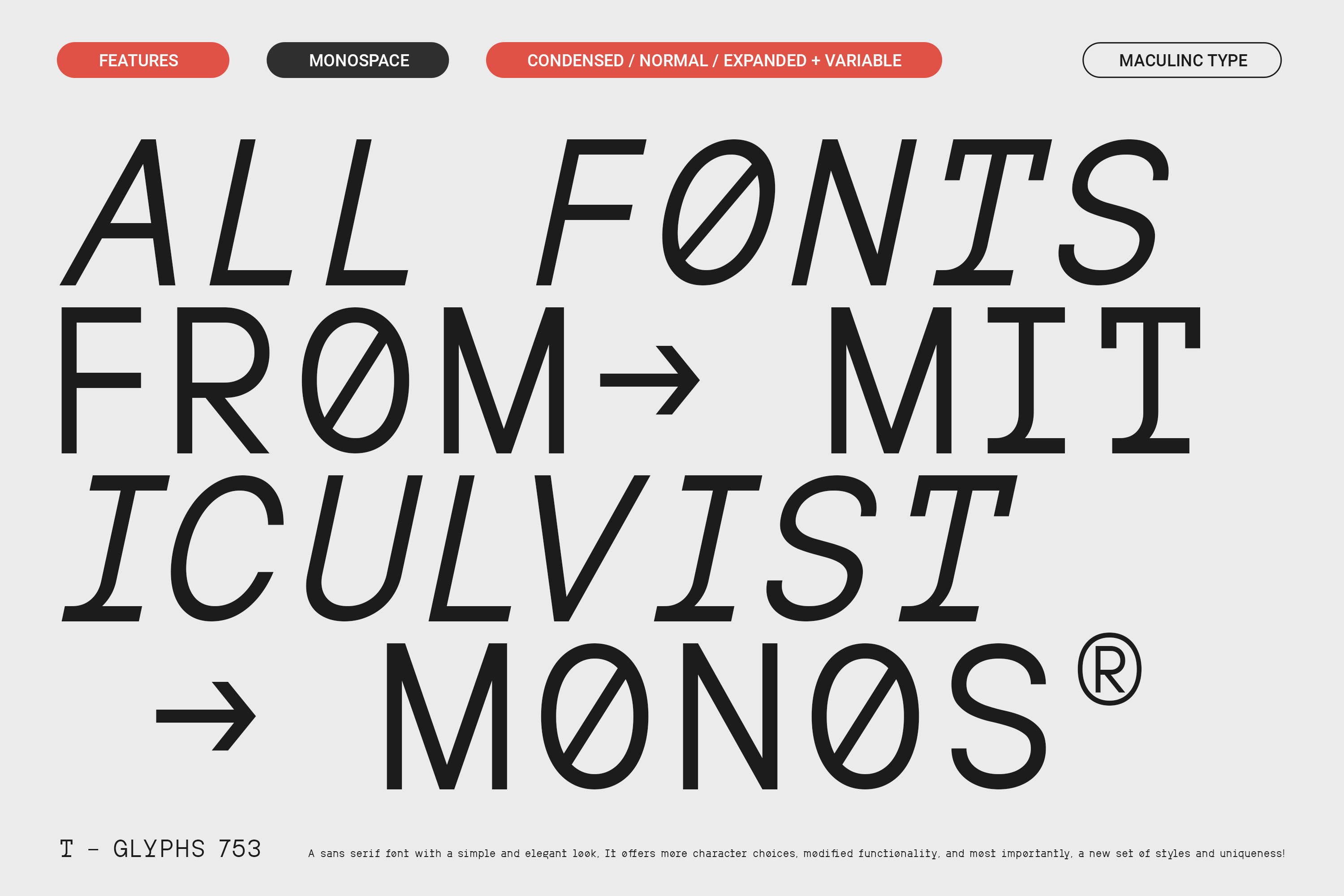
MIT Iculvist Monos | Variable Font
About MIT Iculvist (Sans Serif Family Font)
MIT ICULVIST COMPLETE is a modern monospaced sans serif font family designed for clean, professional, and versatile design work. With its structured yet contemporary look, this font works well across branding, editorial layouts, digital design, and modern visual identities.
This complete family includes 43 styles, featuring Condensed, Normal, and Expanded widths, true italics, and a Variable Font for flexible typographic control. Each style is carefully crafted to maintain clarity and consistency, whether used in compact layouts or expressive headlines.
MIT ICULVIST COMPLETE offers broad multilingual support, including Latin Extended, Cyrillic, and Greek character sets, along with full numerals, punctuation, and symbols. This makes it a reliable choice for international projects, global branding, and cross-language design needs.
Perfect for logo design, UI/UX, web and app interfaces, presentations, posters, and editorial projects, MIT ICULVIST COMPLETE delivers a balance of precision, readability, and modern character.
43 font styles, ; 753 glyphs in each font containing Condensed, Normal, Expanded, with Italic + 1 Variable.
Support for 100+ languages.